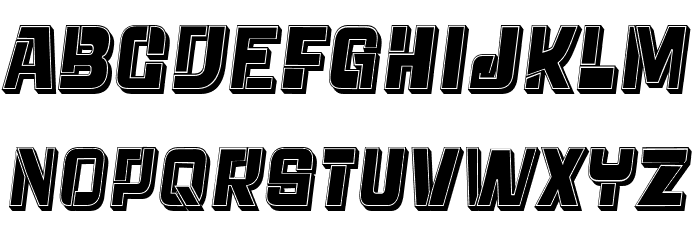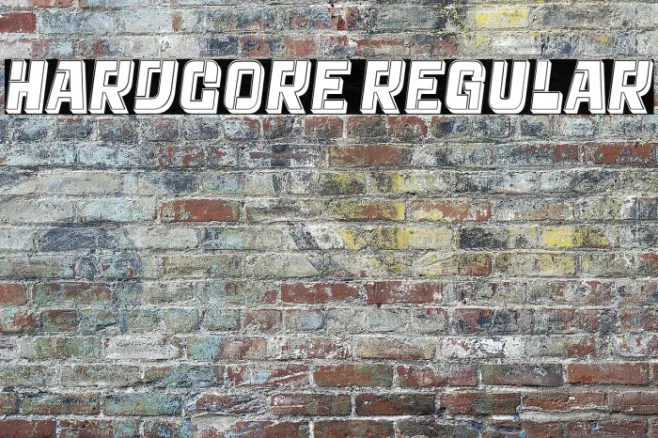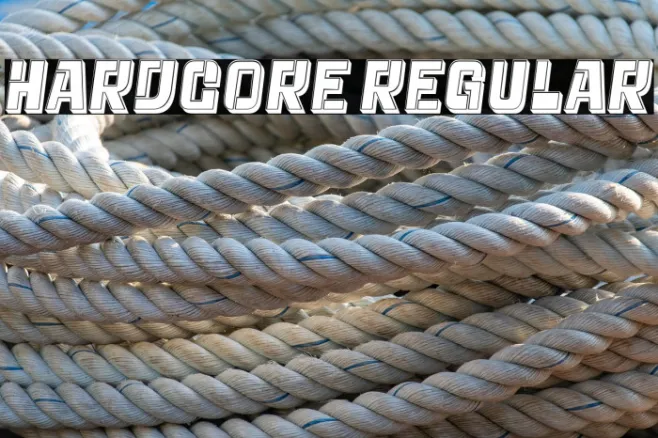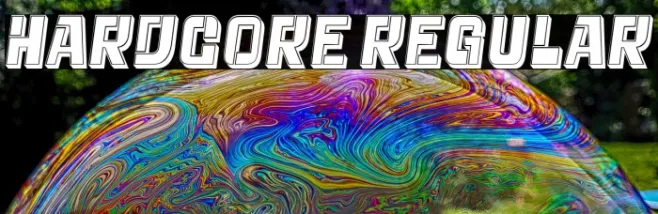
Hardcore Regular Font
This font features a bold, three-dimensional design with a strong, impactful presence. The letters are uppercase and exhibit a shadow effect that gives them depth and a sense of movement. The style is geometric and structured, with clean lines and sharp angles. Each character is outlined, adding to the boldness and making the font stand out. The design is consistent across all letters, maintaining a uniform look that is both modern and dynamic. This font is ideal for creating attention-grabbing headlines or titles, where a strong visual impact is desired.
A bold, three-dimensional font with a geometric and modern style.
- Proposed Projects: Ideal for posters, logos, video game titles, and any project requiring a strong, impactful visual presence.